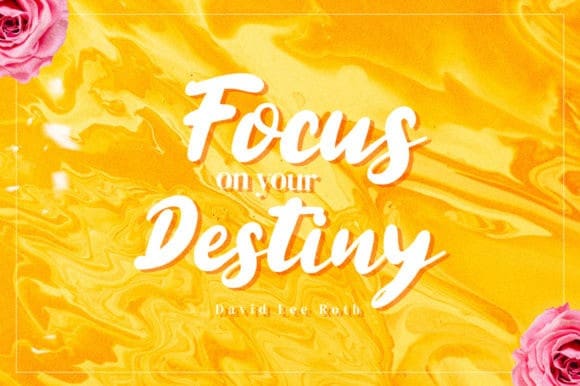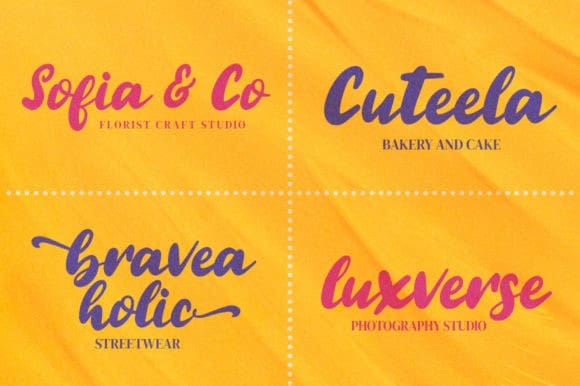
Hamidah Script Typeface
Hamidah Script Typeface, is a gorgeous and bold handwritten font. It reads as strong, confident, and dynamic and can add tons of nostalgic character to your designs. Hamidah is PUA encoded which means you can access all of the glyphs and swashes with ease!